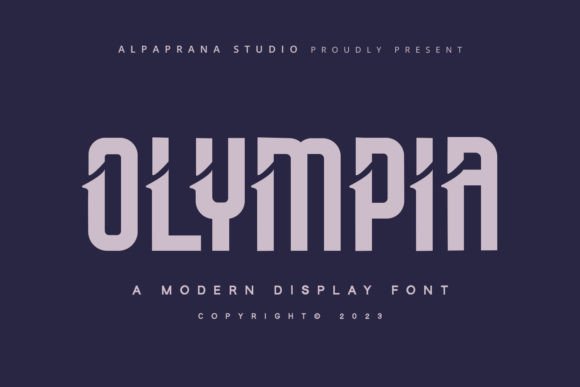
Olympia: A Display Font with Gravitas
First glance at Olympia isn’t about novelty—it’s about presence. This isn’t a font that shouts; it leans in, steady and self-assured. The letterforms balance geometric discipline with subtle organic tension—tight apertures, confident stroke contrast, and terminals that land like quiet exclamation points. It feels both contemporary and timeless, like a well-tailored blazer worn with raw denim: polished but never stiff. Olympia doesn’t chase trends. It holds space.
Where Olympia Earns Its Keep
In logo design, Olympia excels where brand identity demands distinction without distraction. I used it for a ceramic studio’s monogram last month—just the initials “AR” stacked—and the weight, rhythm, and negative space made it feel hand-carved, even though it’s digitally precise. That’s Olympia’s quiet superpower: it implies craft without leaning on script or ornament.
For packaging design—especially premium skincare, small-batch spirits, or artisanal food—Olympia delivers authority in under five words. On a matte black candle label, set in all caps at 28pt, it read as luxurious restraint. On kraft paper, in lowercase at 16pt, it felt grounded and sincere. It doesn’t need embellishment to signal quality.
Posters and social media graphics benefit from Olympia’s inherent hierarchy. Even unstyled, its x-height and cap height create natural emphasis. A single headline like “Gather Here” works harder than most display fonts twice its size. And yes—it holds up in web design headers when exported as variable WOFF2 (test your fallbacks, but Olympia rarely needs them).
It’s equally effective in editorial design for pull quotes or section dividers, and in printable design for wedding invitations or boutique product catalogs. I’ve embedded it into Canva templates for clients selling digital products—and watched engagement lift on hero banners, likely because Olympia slows the scroll just enough to register tone before content.
Merchandise? Yes—but selectively. Embroidered on linen tote bags, it reads cleanly at 30mm width. Screen-printed on t-shirts, it stays sharp down to ~14pt *if* you avoid fine-line variants and stick to the Bold or Medium weights. For Cricut projects, cut files hold beautifully at 1.5" height and above—no jagged joins, no fragile serifs to snap.
Where to Pause—and Why
Olympia is not a body text font. Not even close. As a display font, it’s built for impact, not endurance. Don’t use it for paragraphs, pricing tables, or ingredient lists. Its personality dominates; it doesn’t recede. In fact, if you try to force Olympia into supporting text roles—like captioning an Instagram carousel or labeling product variants—it creates visual friction, not cohesion.
Uppercase works best for short phrases, brand marks, and signage. Lowercase has charm but loses some of its structural confidence—especially in condensed widths—so reserve it for intentional moments: a tagline beneath a logo, a whispered subtitle on a book cover, or a delicate accent in editorial layouts.
Avoid tight tracking below –20. Olympia’s spacing is calibrated for breathing room. Squeeze it, and the letters begin to argue with each other. Also: don’t pair it with other high-contrast display fonts. It’s a soloist—not a duet partner.
How It Shapes Perception—Beyond Aesthetics
Readability isn’t Olympia’s main job—but legibility at intended sizes is excellent. At 36pt+ in headlines, it’s instantly scannable. At 18pt on packaging, it’s clear under retail lighting. Below 14pt? Test rigorously. I once misjudged it on a business card subhead—fine in mockup, blurry in print. Lesson learned: always test physical output.
Brand consistency strengthens with Olympia because it’s distinctive *and* stable. Unlike trendy fonts that age fast, Olympia’s structure resists obsolescence. That builds audience trust over time: customers subconsciously register reliability in type choices that feel intentional, not algorithmic.
Recognition rises when Olympia anchors key touchpoints—the logo, the website header, the product label. Its rhythm becomes part of the brand’s voice. And engagement? It’s measurable. Clients report higher dwell time on landing pages using Olympia in H1s—likely because the font signals clarity before a single word is parsed.
Designer Notes You’ll Actually Use
- Test in black and white first. Olympia’s contrast shines without color crutches—this reveals whether its voice matches your brand’s core tone.
- Check small-size readability on real mockups. A 12pt label on a 2oz bottle looks different on screen than under fluorescent light in a boutique.
- Compare uppercase vs. lowercase in context. They’re not interchangeable moods—they’re different tools. Uppercase = declaration. Lowercase = nuance.
- Review spacing across weights. The Light and Bold behave differently at the same tracking value. Adjust per weight—not per project.
- Pair it deliberately. Try Olympia beside a warm serif font (like Tiempos) for editorial depth, a neutral sans serif (like Inter) for modern contrast, or a restrained script font (not handwritten font—too busy) for elevated accents. Avoid pairing with another creative font unless you’re aiming for deliberate dissonance.
It earns its place not by being flashy, but by being resolved. Every curve, every angle, every space feels considered—not optimized, not automated, but *designed*. That intention translates directly to how audiences perceive your work: more professional, more memorable, more human.
If you’re evaluating Olympia for logo design, packaging design, or any brand identity system, ask yourself: does this typeface deepen the story—or just decorate it? With Olympia, the answer, more often than not, is clear.